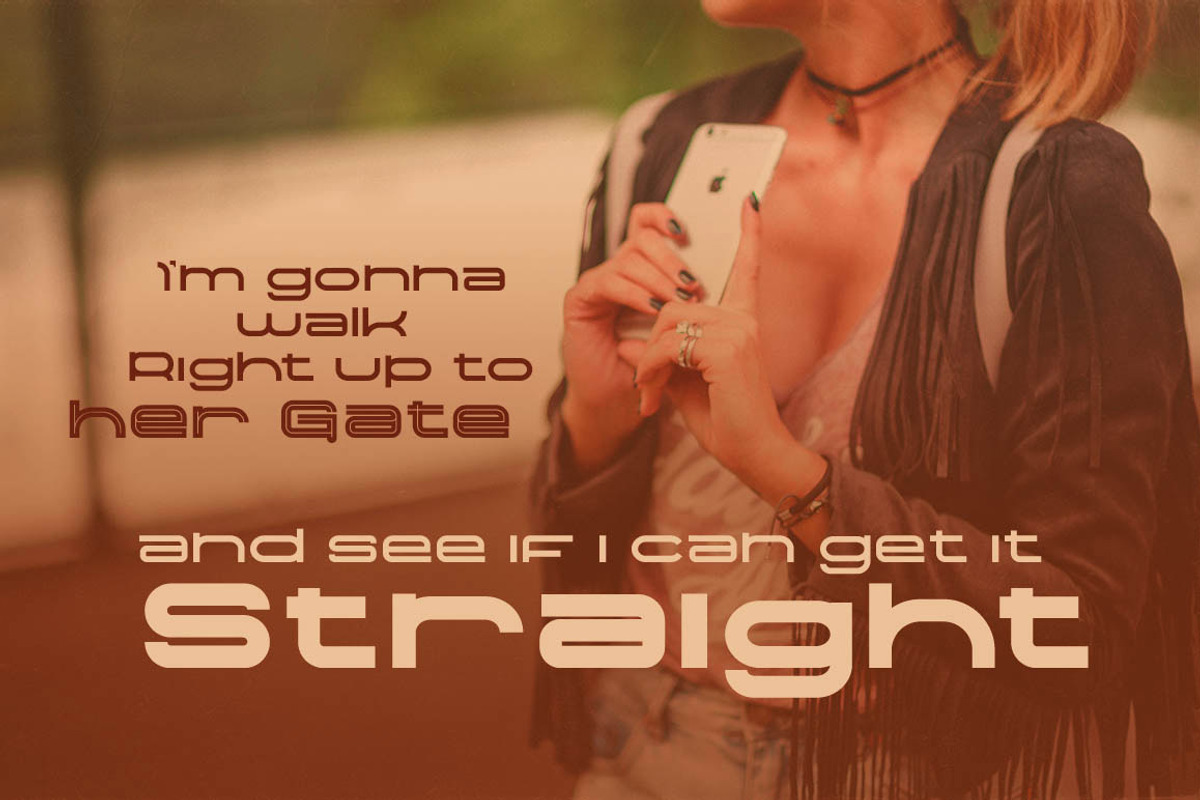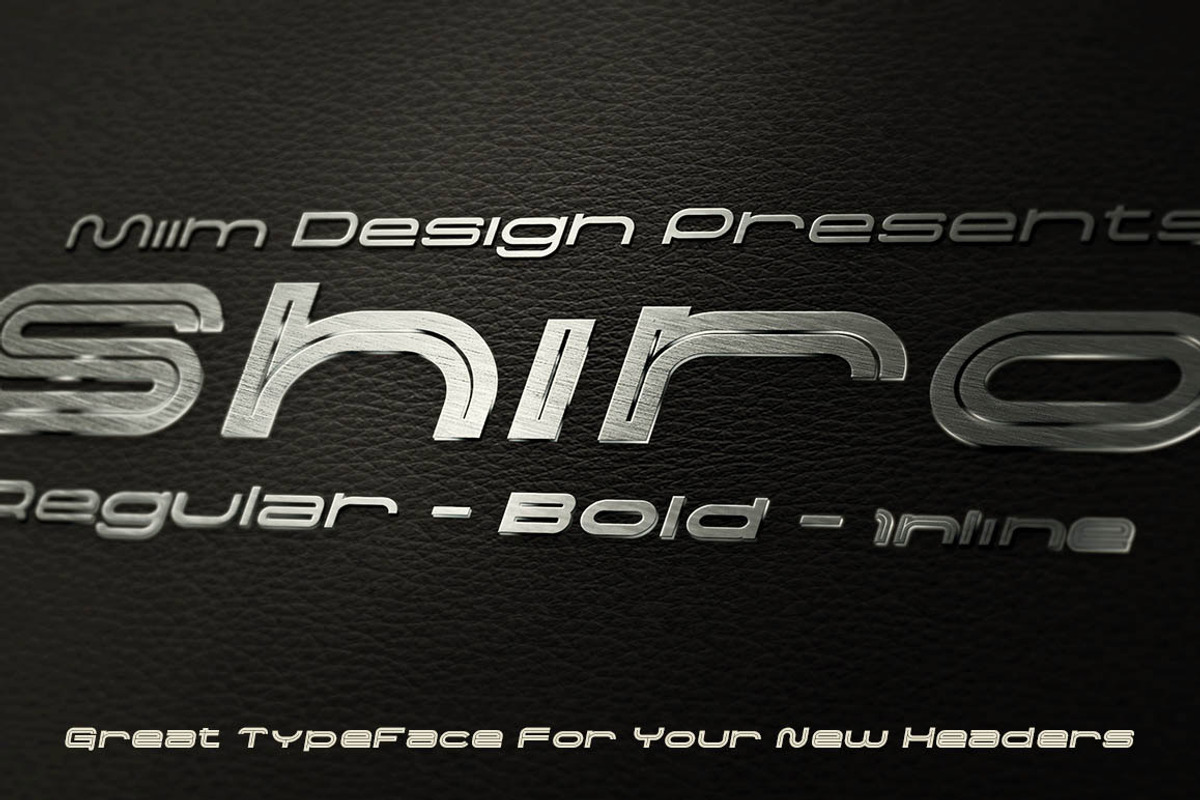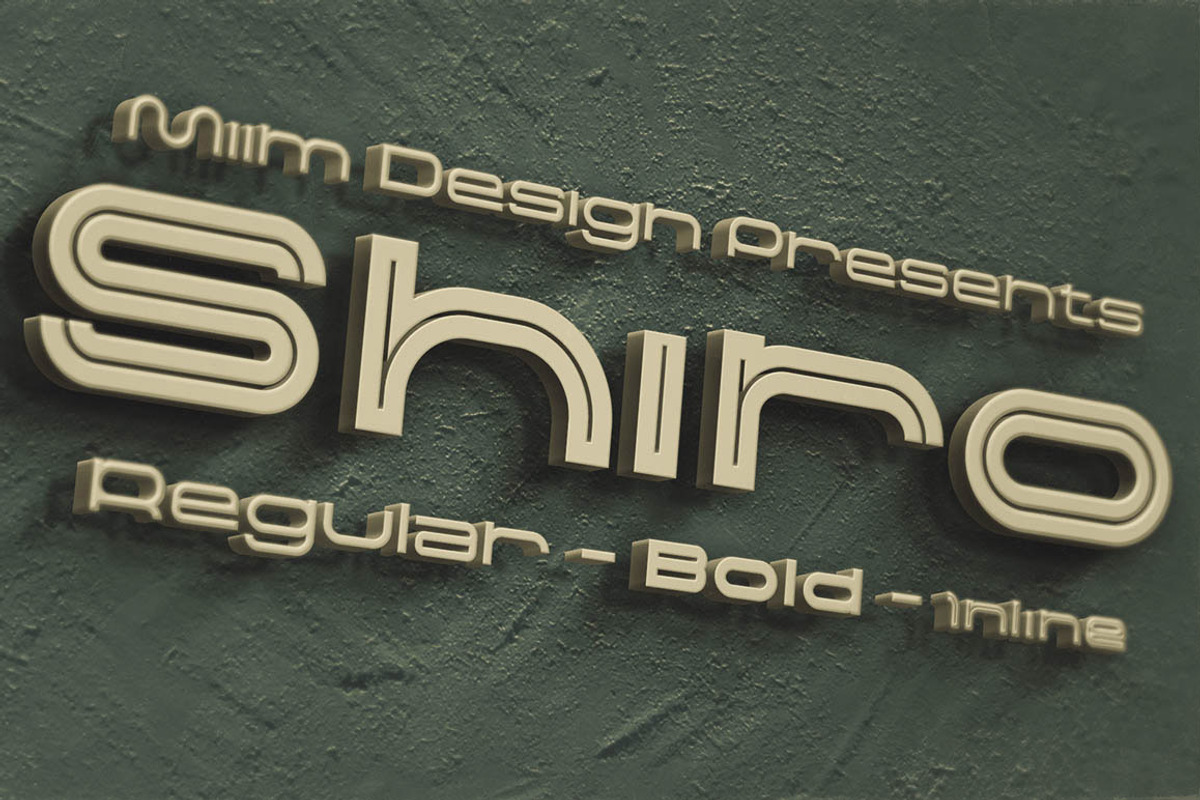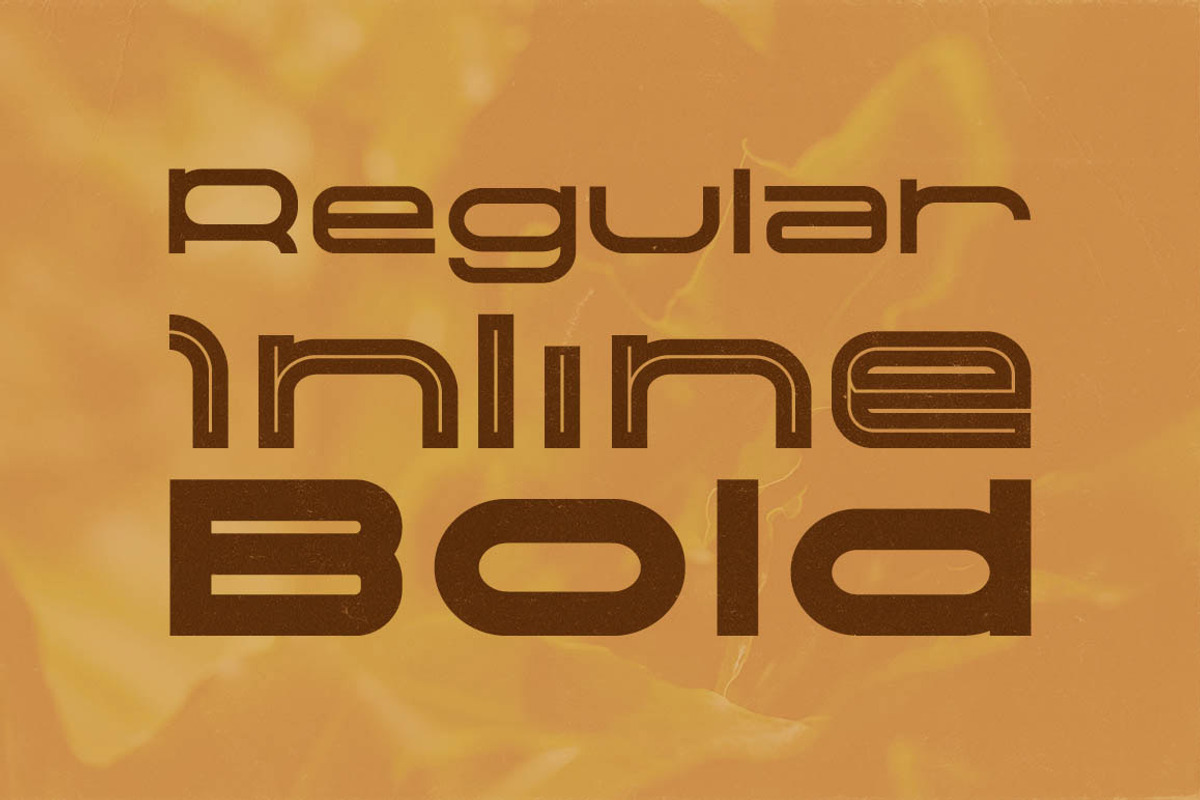
Shiro - Modern Font
Shiro - Modern Font by MIIM is a font selected for branding, posters, packaging, typography.
- Shiro Regular Regular
- Shiro Bold Bold
- Shiro Inline Inline
Shiro - Modern Font by MIIM fits naturally into Branding, posters, packaging, typography.